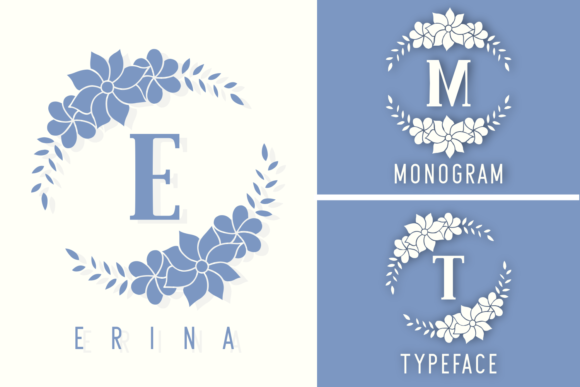
Unlock the Beauty of Erina Font: Elevate Your Designs with Elegance
As a designer, there’s nothing quite like the thrill of bringing a creative vision to life. You’re brainstorming ideas, sketching out concepts, and experimenting with different fonts – and then, it happens. You stumble upon the perfect font, one that captures the essence of your design and elevates it to new heights. For many of us, that font is Erina Font, a stunning, highly detailed decorative font that features a beautiful floral theme.
Erina Font is more than just a pretty face, however. With its PUA encoding, you’ll have access to a vast array of glyphs and swashes, giving you the freedom to add a personal touch to your designs. Whether you’re creating a wedding invitation, a branding package, or a digital artwork, Erina Font is the perfect addition to bring your vision to life.
- Unique Characteristics: Erina Font features a unique blend of modern and elegant design elements, with subtle flair and curves that give it a sophisticated and refined look.
Erina Font Review
As a designer, I’ve had the chance to work with Erina Font, and here’s my honest take on it.
- Erina Font has a beautiful, elegant design that’s perfect for feminine and sophisticated projects.
- The font is highly legible, making it great for body text and reading.
- The font family includes a range of weights and styles, giving designers plenty of options for customizing their projects.
- Erina Font is also highly versatile, suitable for a wide range of industries and applications, from fashion to food labels.
- The font may not be suitable for projects that require a more modern or edgy look.
- Some users may find the font to be a bit too elegant or formal, limiting its use in more casual projects.
- The font family is not as extensive as some other popular font families, which may limit its use in projects that require a wide range of styles.
Erina Font is a beautiful and elegant font that’s perfect for projects that require a touch of sophistication. While it may not be suitable for every project, it’s a great addition to any designer’s toolkit. With its high legibility and versatility, Erina Font is a solid choice for designers looking to add some elegance to their work.
Getting the Most Out of Erina Font
Erina Font is a versatile and elegant font that can be used for a variety of purposes. To get the most out of it, try:
- Pairing it with a bold font for contrast and visual interest.
- Using it for headings and titles to create a professional look.
- Experimenting with different font sizes and styles to create a unique look.
Erina Font is commonly used for
Alternatives to Erina Font for Designers
Playfair Display is a luxurious, high-end serif font that is perfect for creating elegant and sophisticated designs. It features elegant swashes and flourishes, making it ideal for use in branding, advertising, and editorial content. When to use: High-end branding, luxury products, and elegant designs.
Comparison to Erina Font: While Erina Font is also a serif font, Playfair Display is more luxurious and has a more elegant feel. Erina Font is more versatile and can be used for a wide range of designs, while Playfair Display is best suited for high-end and sophisticated designs.